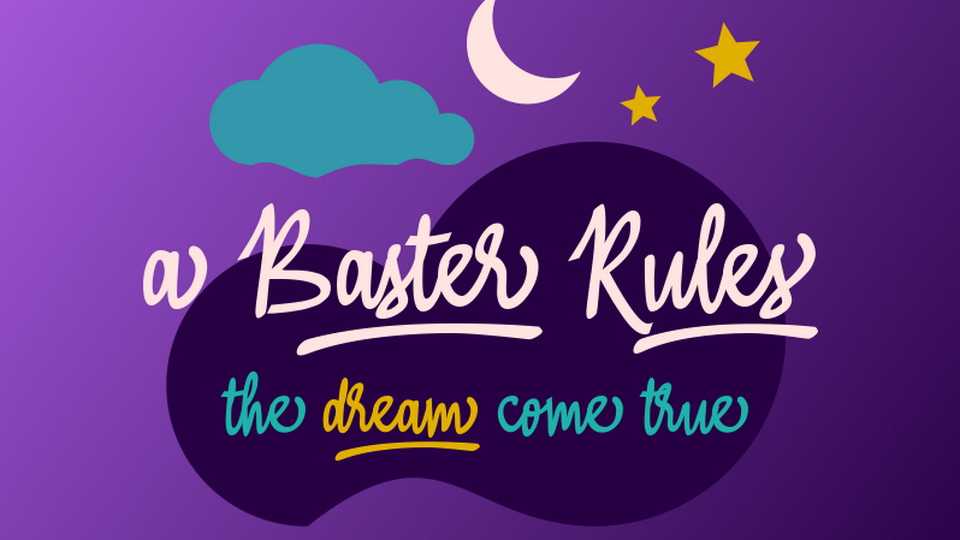
Download Baster Rules font, a lovely handwritten script. Baster Rules font is suitable for crafts, letters, cards, notes, quotes, social media and more.
Designer: Wahyu Eka Prasetya